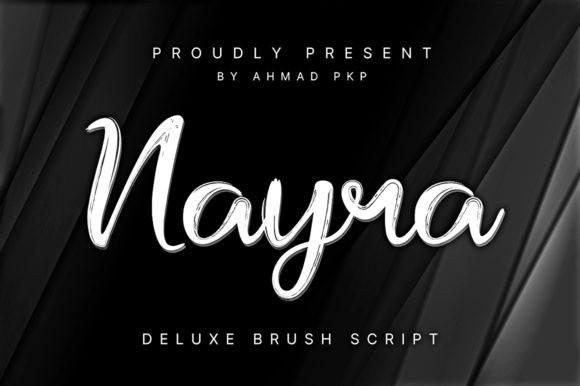
Nayra Font
Nayra is a simple, unique, and easy-to-apply font. You can add this elegant font to wedding invitations, business cards, greeting cards, posters, fashion, social media posts, wall art, and many more that require high-quality fonts, the graphics in this font from characters to kerning are perfect for use in all your work.